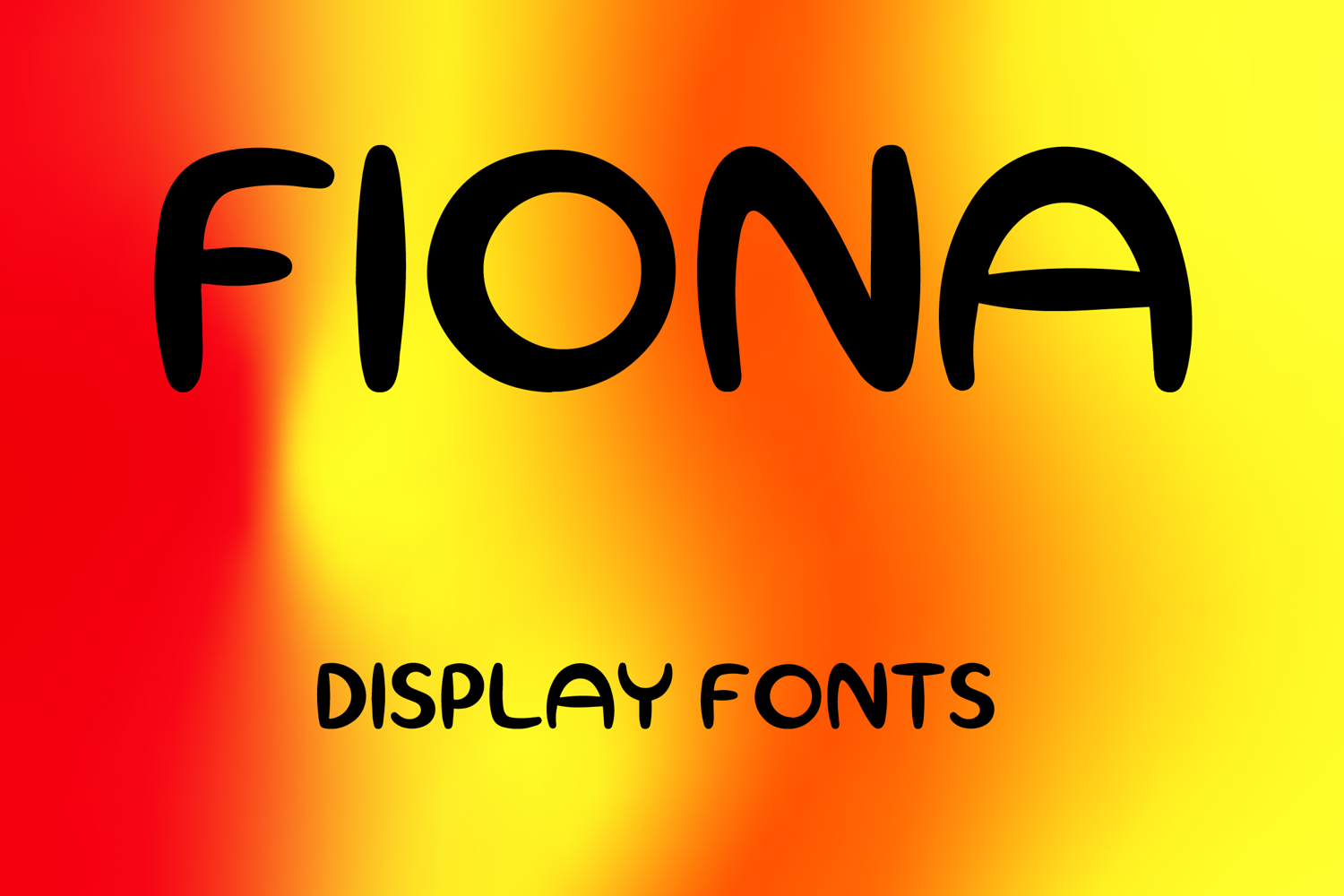
FIONA
FIONA is a playful display font with a bold rounded style and friendly handcrafted charm. Its uppercase letterforms feature thick smooth strokes, soft curves, and slightly quirky proportions that create a fun, cheerful, and eye-catching look. Designed with uppercase letters A–Z and numbers 0–9, FIONA is perfect for branding, posters, packaging, logos, invitations, social media graphics, and creative projects that need a warm and memorable statement.